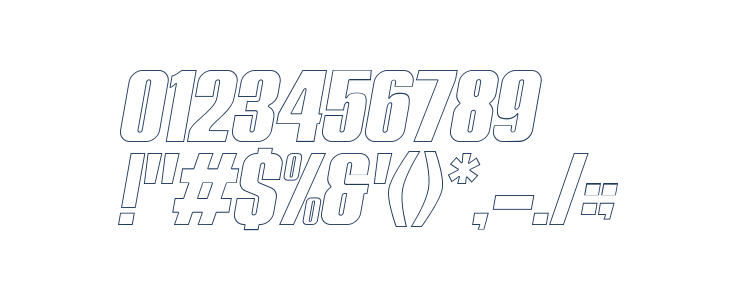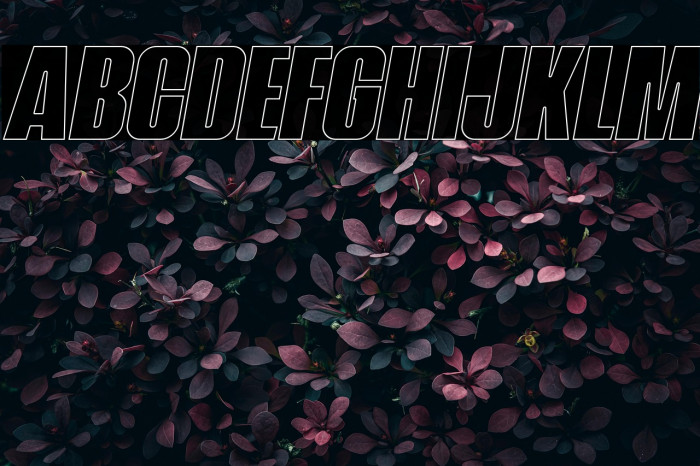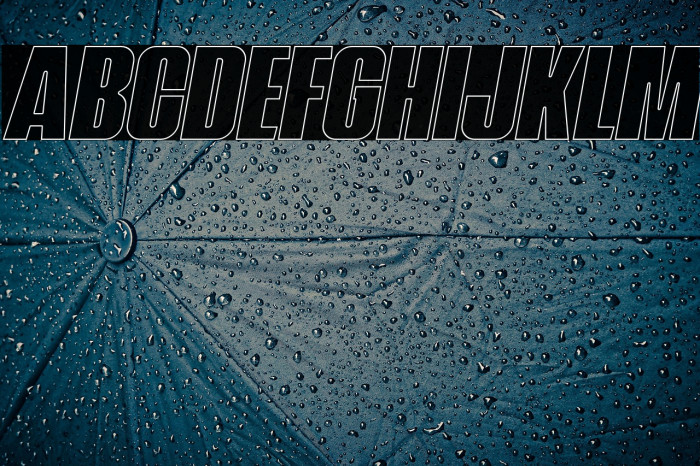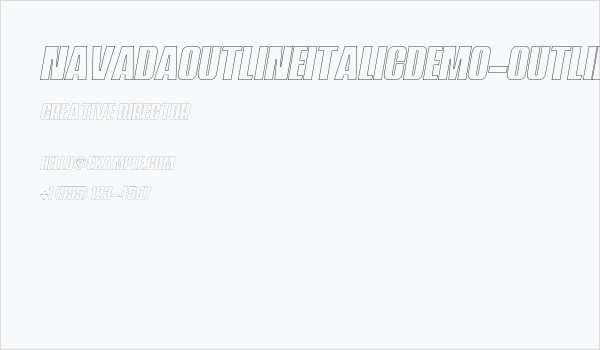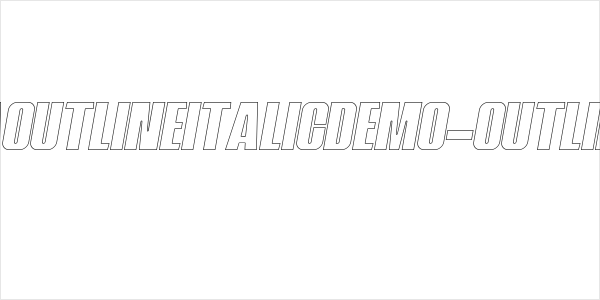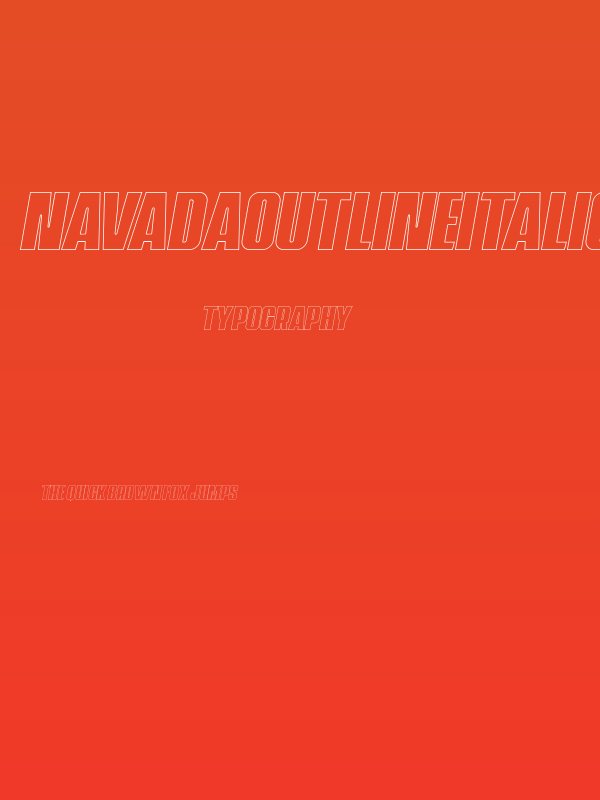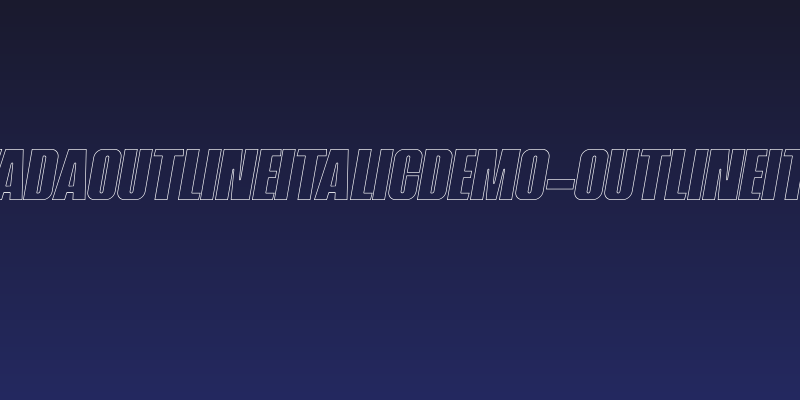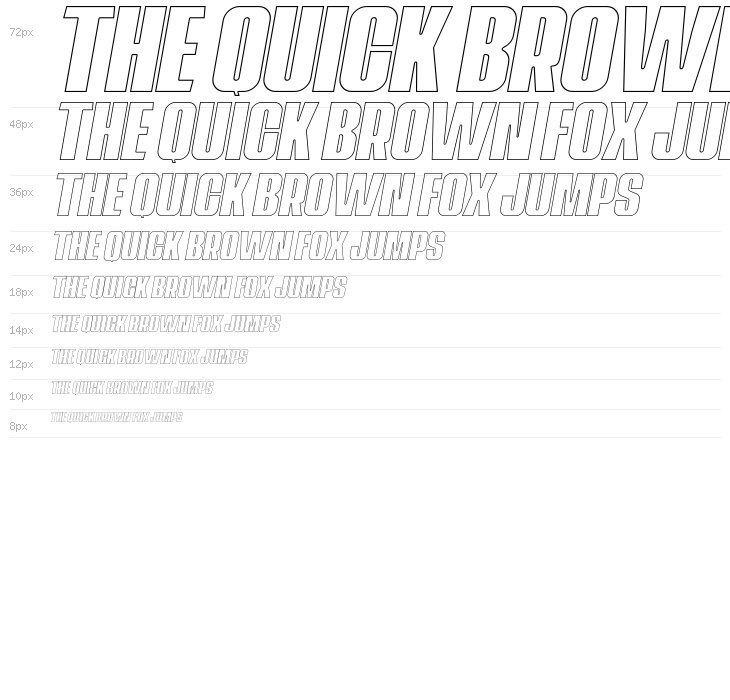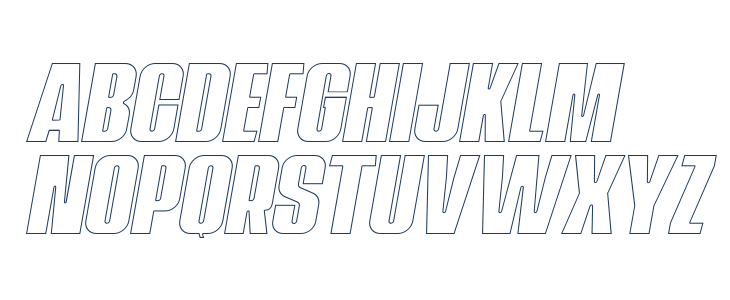
NavadaOutlineItalicDemo-OutlineItalic Font
NavadaOutlineItalicDemo-OutlineItalic Description
This font features a bold, italicized outline style that gives it a striking and dynamic appearance. The characters are uppercase and lowercase letters, numbers, and a variety of special symbols, all presented with a consistent outline that emphasizes their shape without filling them in. The italic slant adds a sense of motion and energy, making it ideal for attention-grabbing designs. The spacing between characters is normal, ensuring readability while maintaining the bold aesthetic. The font's outline nature provides a modern and stylish look, suitable for contemporary design projects.
Proposed ProjectsIdeal for logos, headlines, posters, and any design requiring a bold statement.